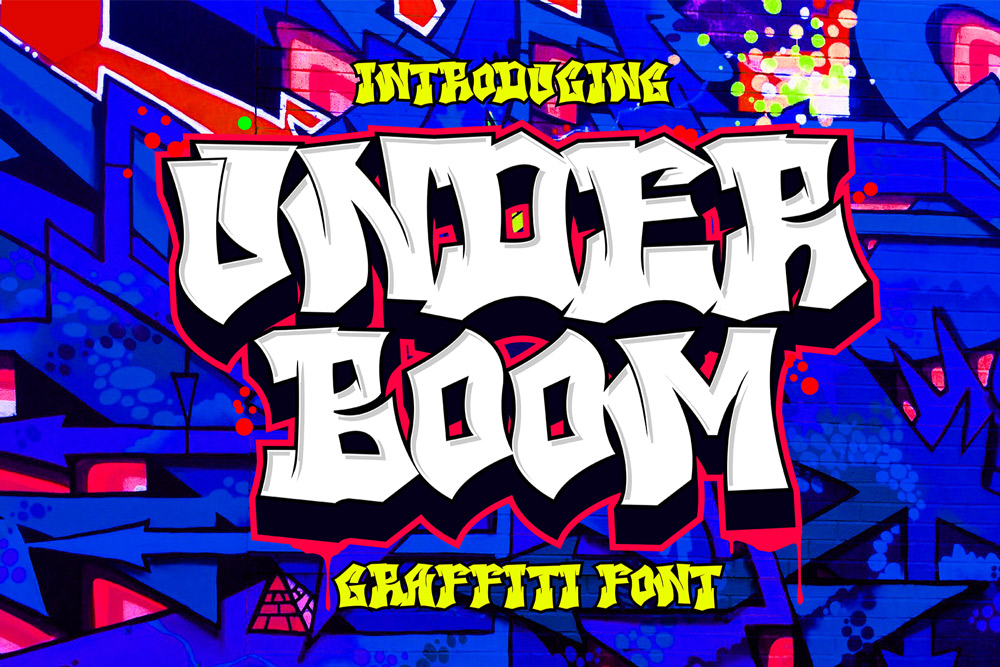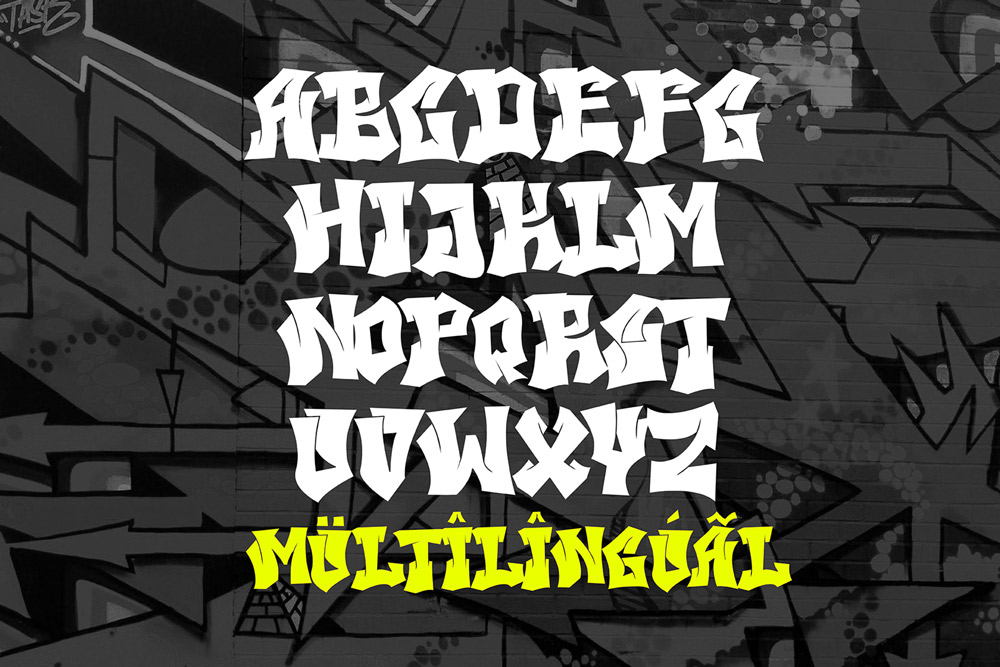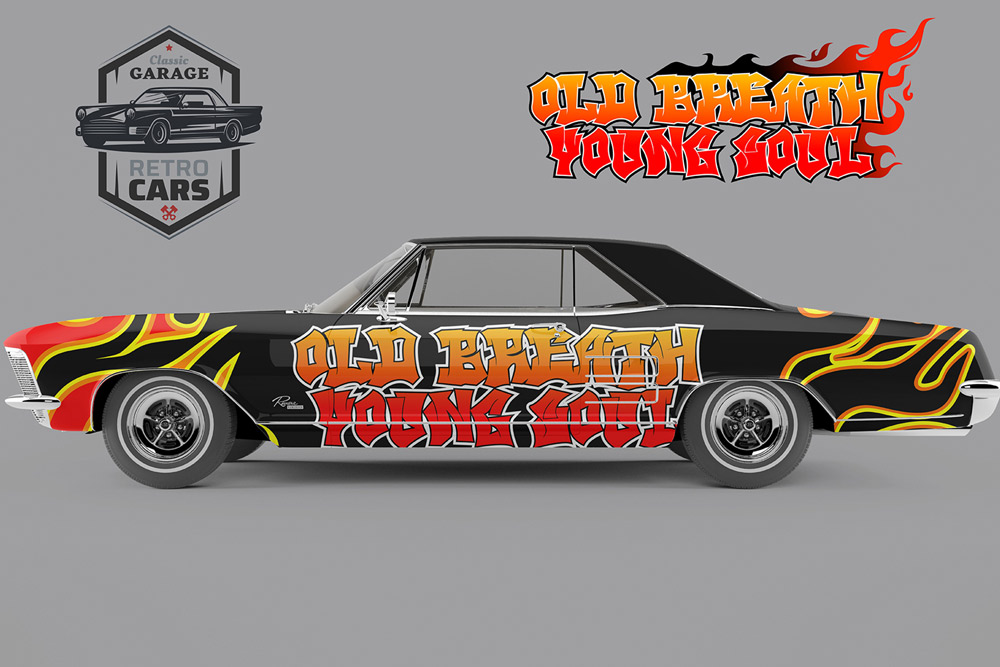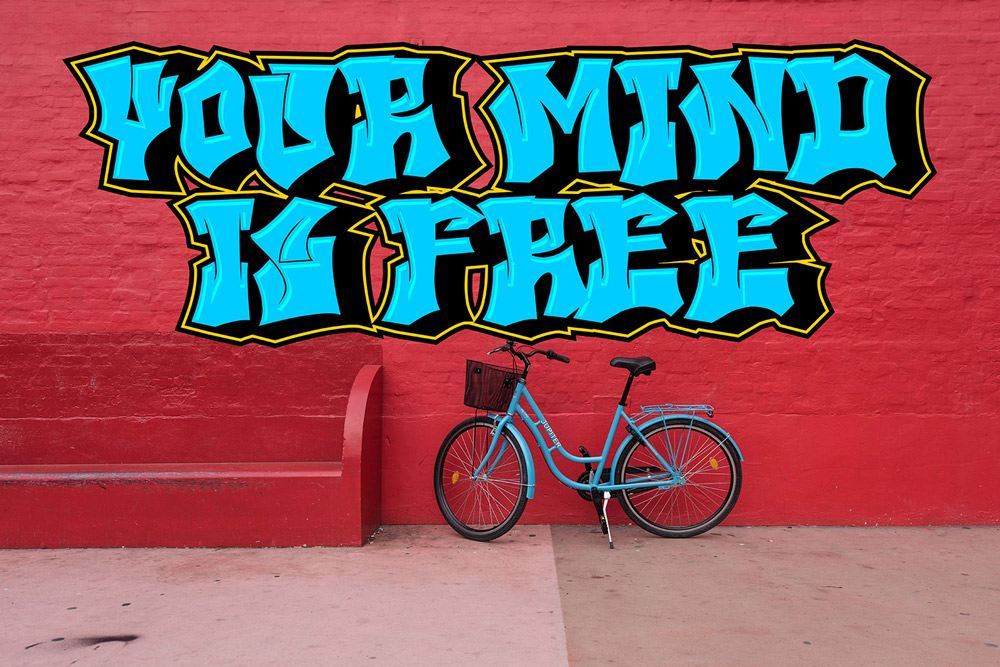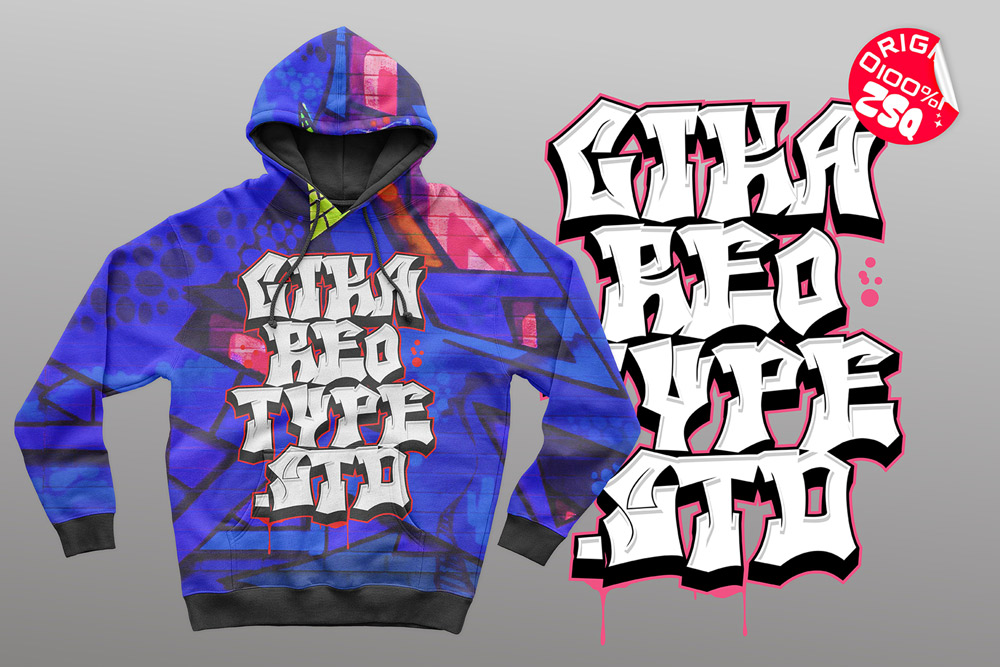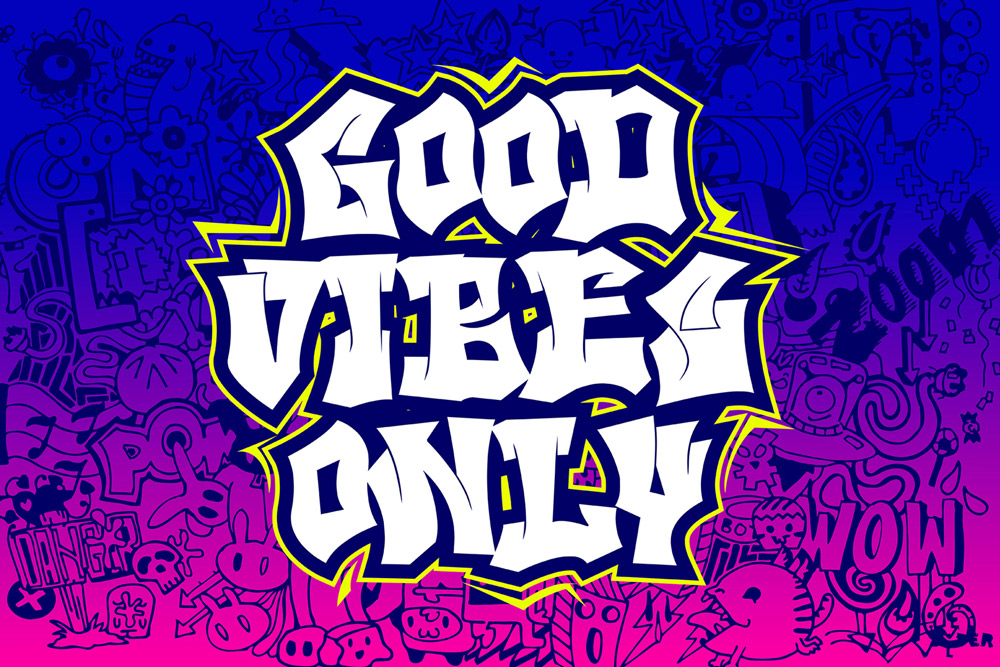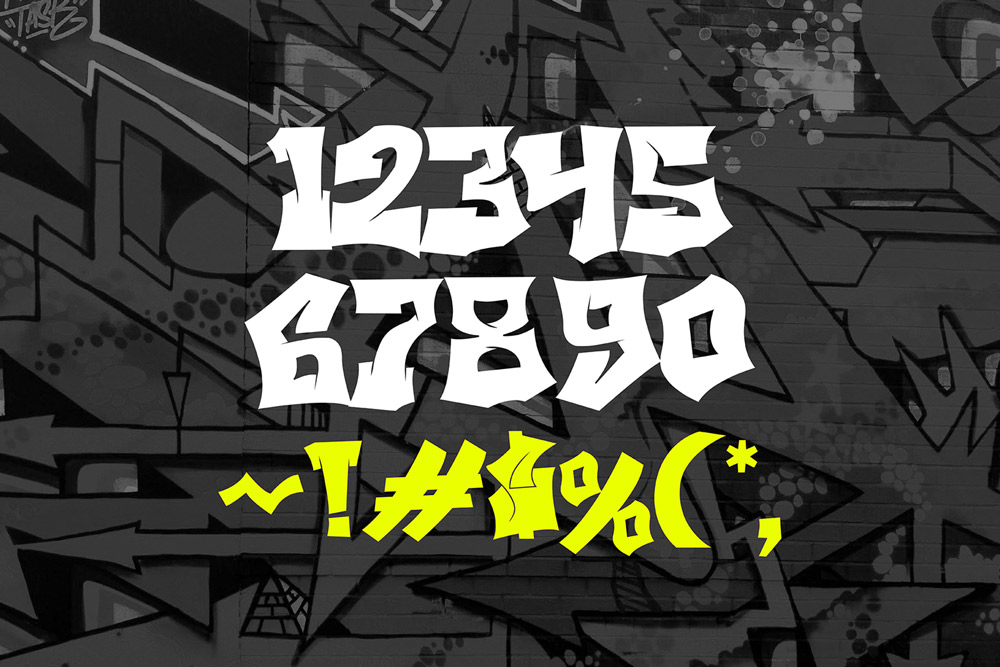
About Under Boom | Wild Urban Street Style Font
Under Boom is a high-energy graffiti font designed to unleash raw urban expression into your creative projects. Built with aggressive strokes and unpredictable shapes, this wild graffiti font captures the essence of true street bombing culture. Whether you’re creating bold streetwear branding, music artwork, or eye-catching posters, Under Boom graffiti font delivers a powerful and rebellious visual impact.
This urban graffiti font is crafted for designers who want to break the rules and create something unforgettable. With its chaotic yet controlled style, Under Boom transforms ordinary typography into explosive visual statements that demand attention.
A Wild Graffiti Font with Explosive Character
Under Boom graffiti font stands out with its untamed and energetic design. Each letter is infused with movement and attitude, making this graffiti font feel alive and unpredictable. Inspired by real street tagging styles, this wild graffiti font brings authenticity and edge into every design.
The irregular forms and bold strokes give this urban graffiti font a unique personality that cannot be replicated by standard typefaces. It’s perfect for projects that need a raw, underground aesthetic while still maintaining readability.
Built for Maximum Impact and Street Presence
If your goal is to create bold and striking visuals, Under Boom graffiti font is the perfect choice. This graffiti display font is designed to dominate layouts, making it ideal for headlines, logos, and promotional graphics. Its wild structure ensures that your typography stands out, even in crowded compositions.
This urban graffiti font is not just about chaos—it’s about controlled energy. The balance between wild shapes and legibility makes Under Boom a versatile tool for both artistic and commercial projects.
Complete Character Set & Typography Features
Under Boom – Wild Graffiti Font includes all the essential features needed for professional design work.
– Uppercase Characters
Bold and expressive uppercase letters designed with authentic graffiti font style for maximum visual impact.
– Multilingual Support
Supports multiple languages, making this graffiti font suitable for global branding and international audiences.
– Numbers & Punctuation
A complete set of numbers and punctuation ensures flexibility across various design applications using this urban graffiti font.
- Bold and expressive wild graffiti font design
- Authentic street-inspired lettering
- Strong visual impact for display use
- High readability despite dynamic forms
- Perfect for urban branding and streetwear
- Works seamlessly across digital and print media
- Designed for modern creative projects
Why Designers Love Under Boom
Designers love Under Boom graffiti font because it offers raw energy and creative freedom. This wild graffiti font allows designers to step outside conventional typography and explore bold, expressive styles. Its unpredictable shapes add character and uniqueness to every project.
Another reason designers choose this urban graffiti font is its versatility. Despite its wild appearance, it remains readable and functional, making it suitable for both artistic and commercial use. From branding to social media content, Under Boom adapts effortlessly.
This graffiti display font also stands out because of its authenticity. It captures the spirit of real street art, giving your designs a genuine urban edge that resonates with modern audiences.
Perfect For Creative Projects
Under Boom graffiti font is ideal for a wide range of design applications:
- Streetwear branding
- Graffiti posters and flyers
- Music album covers
- Social media graphics
- Logo design with urban style
- Merchandise and apparel
If you’re searching for a wild graffiti font that delivers bold and rebellious results, Under Boom is the perfect choice.
Designed for Bold Urban Creators
In today’s competitive design landscape, having a distinctive graffiti font is essential. Under Boom gives you the tools to create visuals that stand out and leave a lasting impression. Its wild and energetic style makes it a go-to urban font for designers who want to push creative boundaries.
This graffiti font is optimized for versatility, ensuring it performs well across different platforms—from digital screens to printed materials. It maintains its impact and clarity in every use.
Powerful Closing
Under Boom – Wild Graffiti Font is more than just a typeface—it’s a creative explosion. With its bold shapes and untamed energy, this graffiti font transforms your ideas into unforgettable visual experiences.
If you’re ready to elevate your designs with a powerful wild graffiti font, Under Boom is your ultimate weapon. Break the rules, embrace the chaos, and make your typography impossible to ignore.